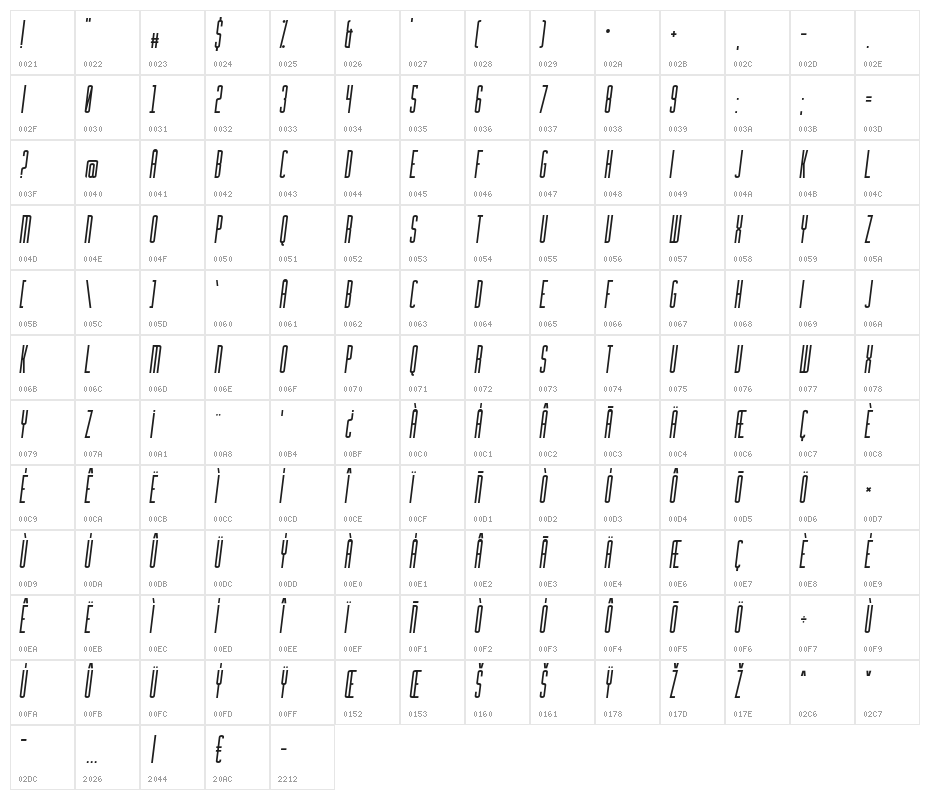
Facunda-Italic Font
Facunda-Italic Description
This font features a sleek, italicized design with elongated, narrow characters that convey a sense of motion and modernity. The letters are slightly condensed, giving them a streamlined appearance, while maintaining legibility. The consistent slant across all characters adds a dynamic and energetic feel. The numerals and special characters follow the same stylistic cues, ensuring uniformity throughout. This font's distinctive style makes it suitable for projects that require a contemporary and stylish touch.